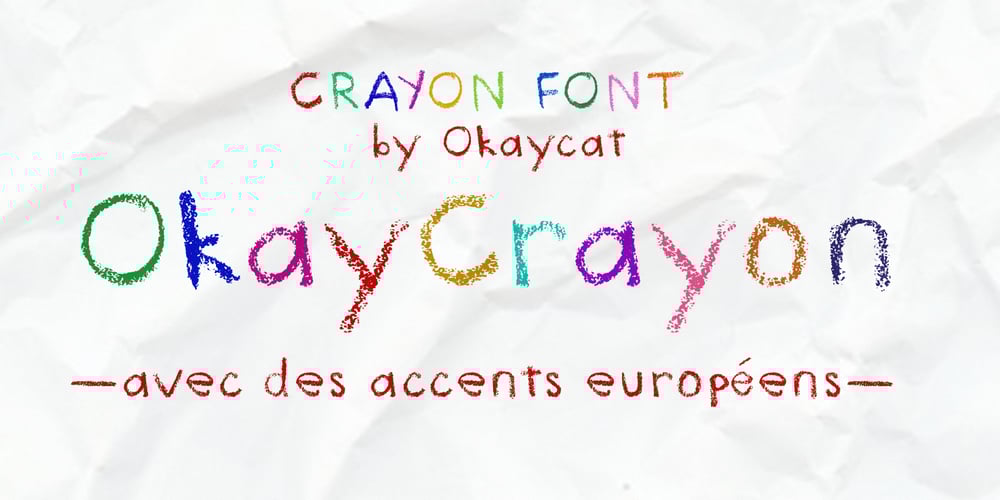
Okay Crayon Font Family was designed by Luke William Turvey and published by Okaycat. Okay Crayon contains 1 styles and family package options. One waxy black crayon was used up, entirely down to the tiniest nub, by the making of this font. It’s fun! Perfect for creating crayon written text, or to get the look of chalk-board writing, conte, or charcoal. Okay Crayon is extended, containing West European diacritics & ligatures, making it also suitable for multilingual environments & publications.